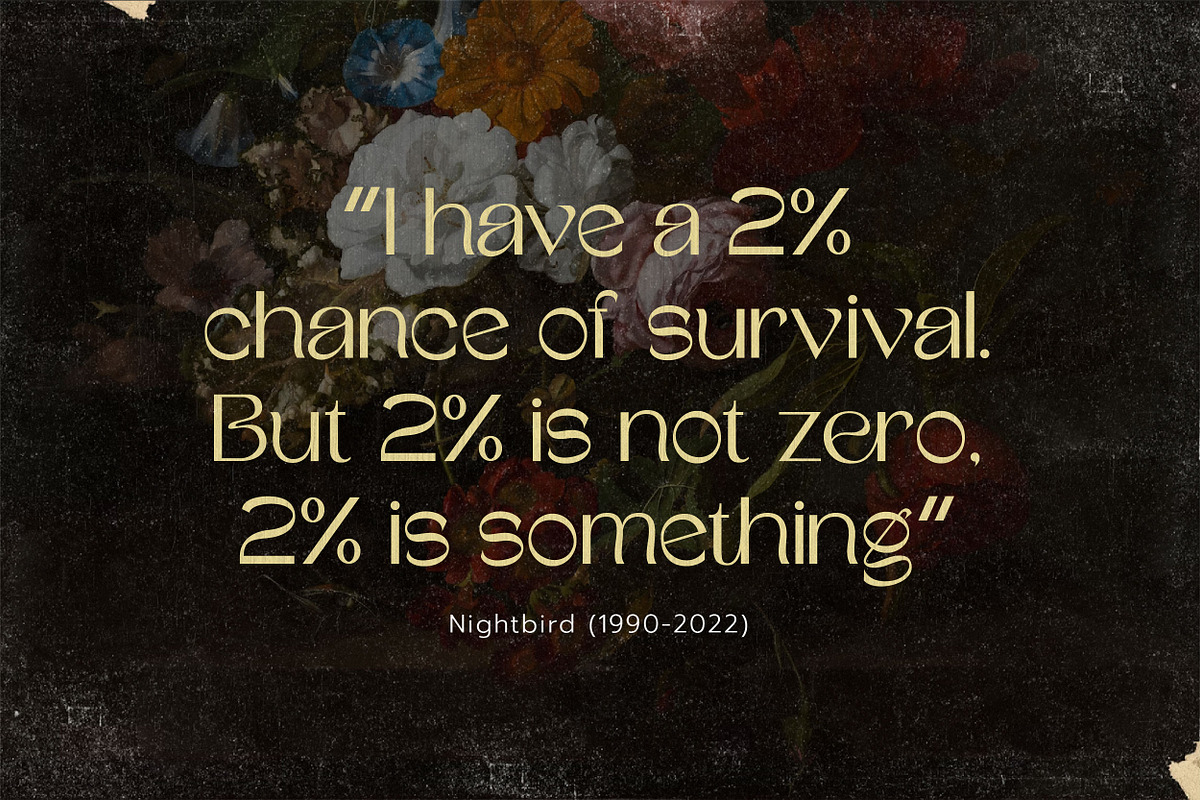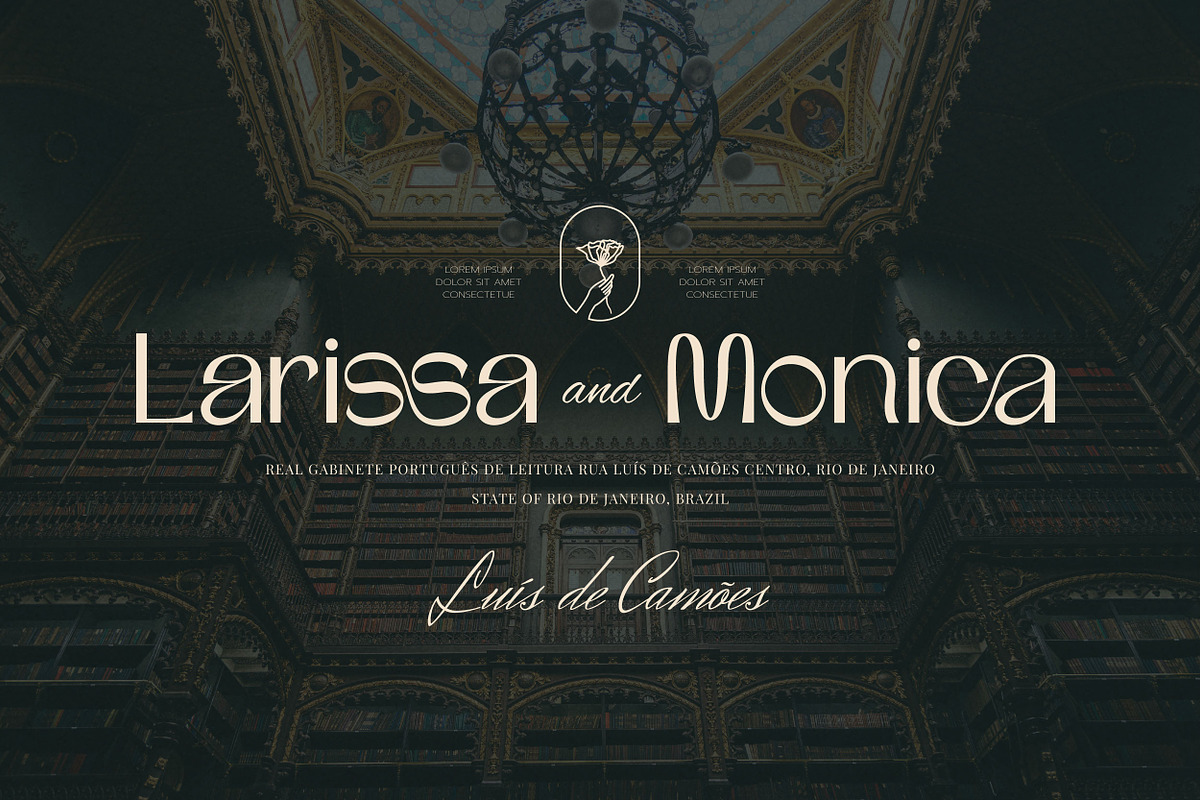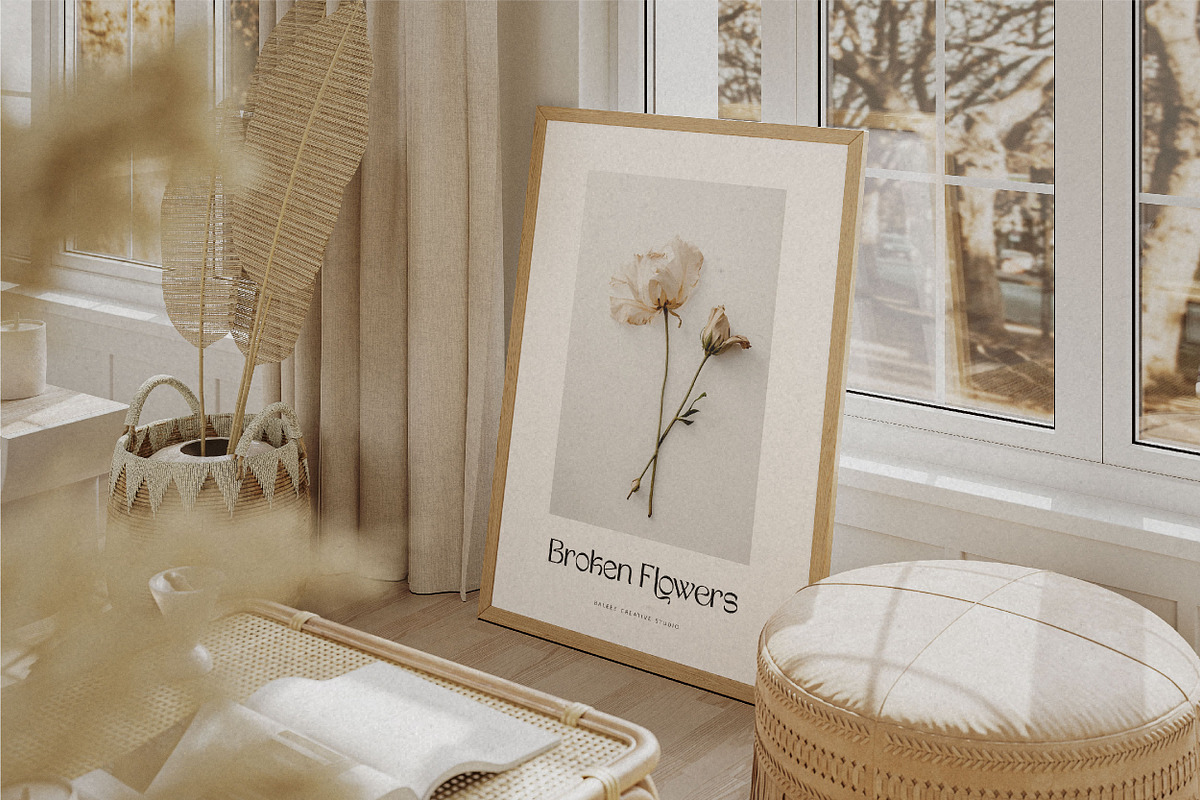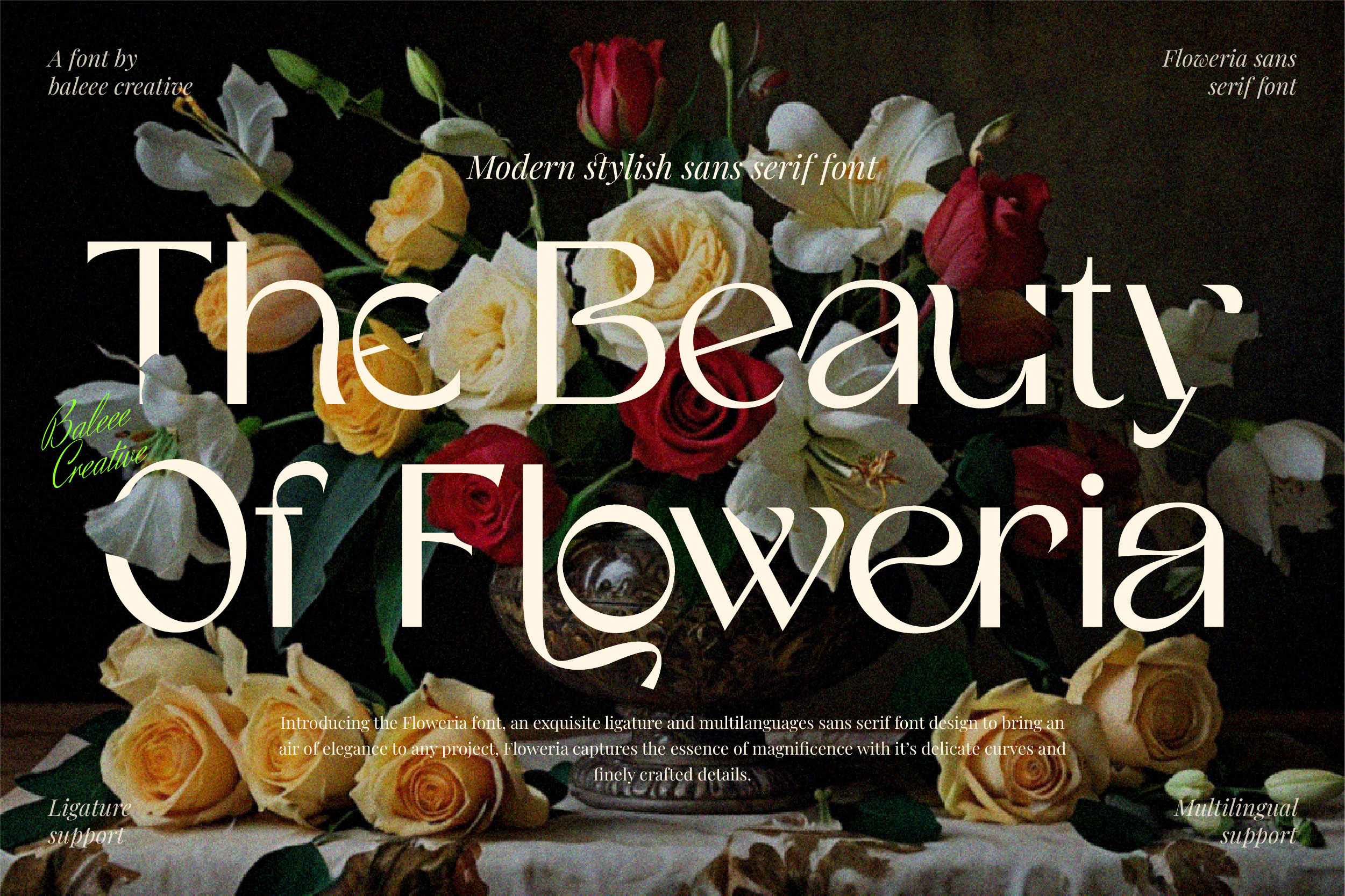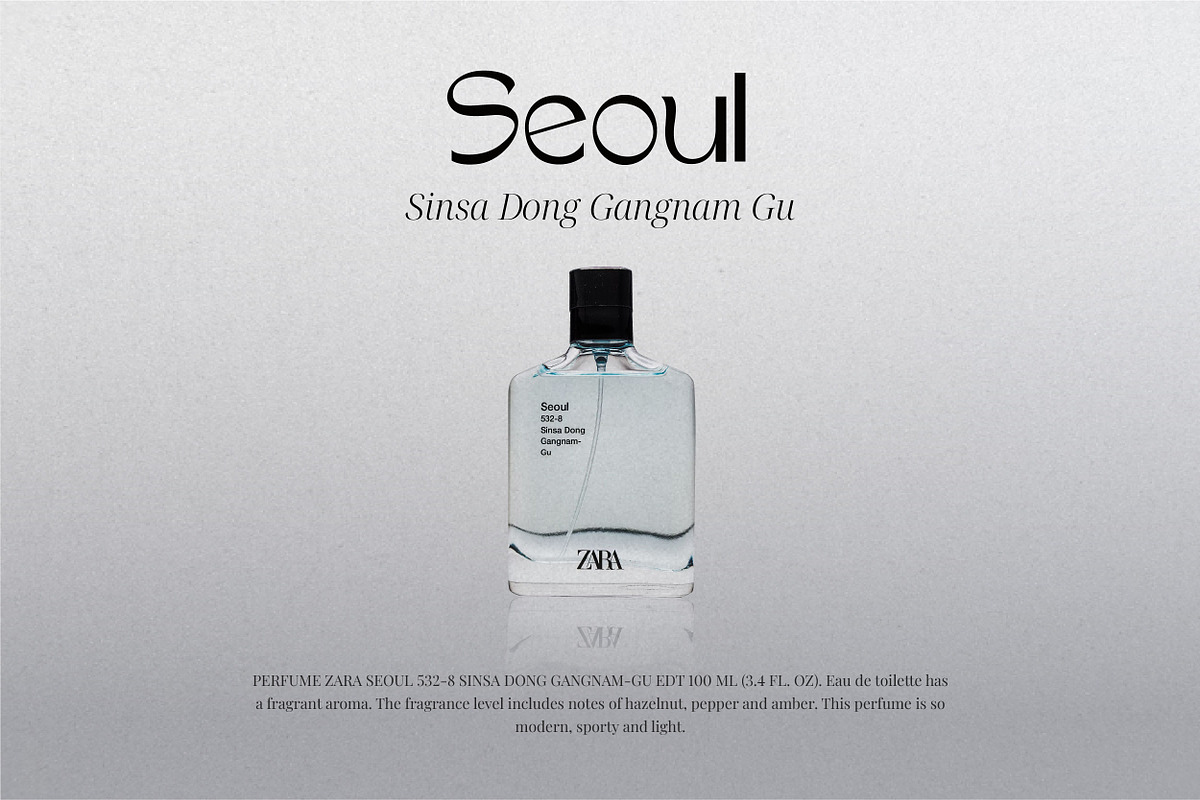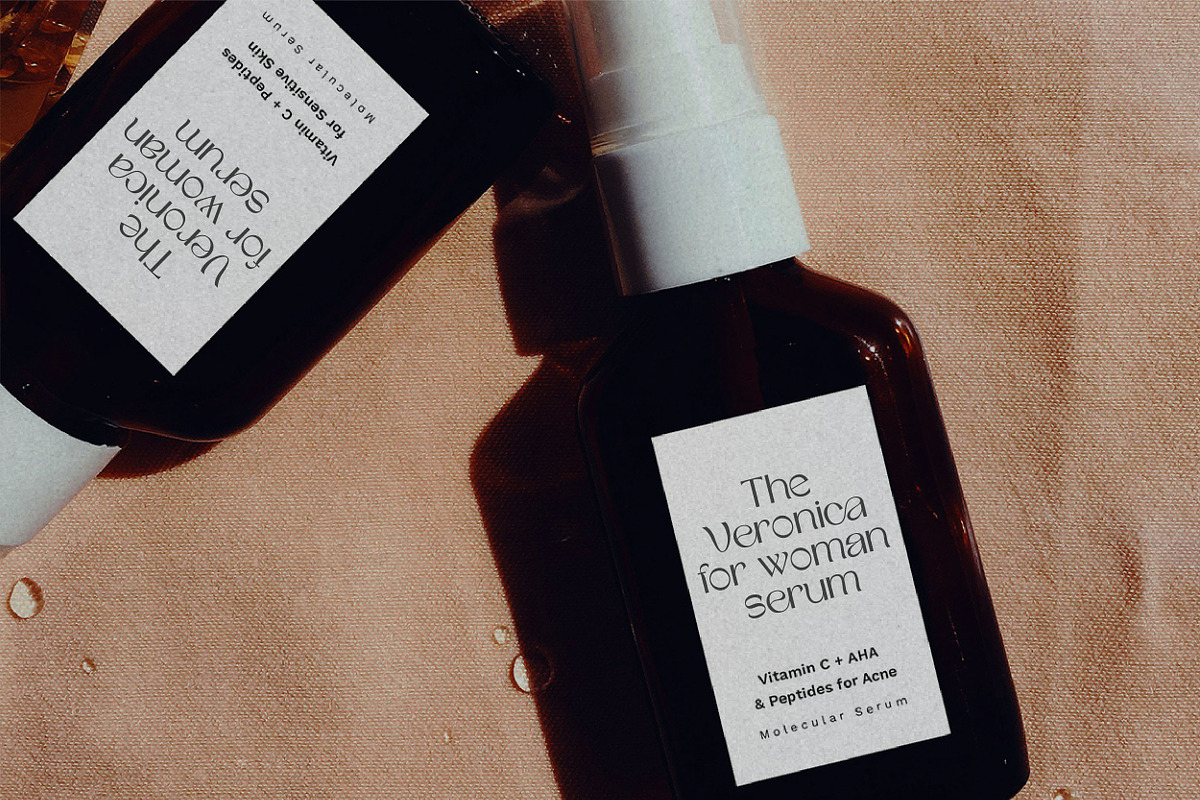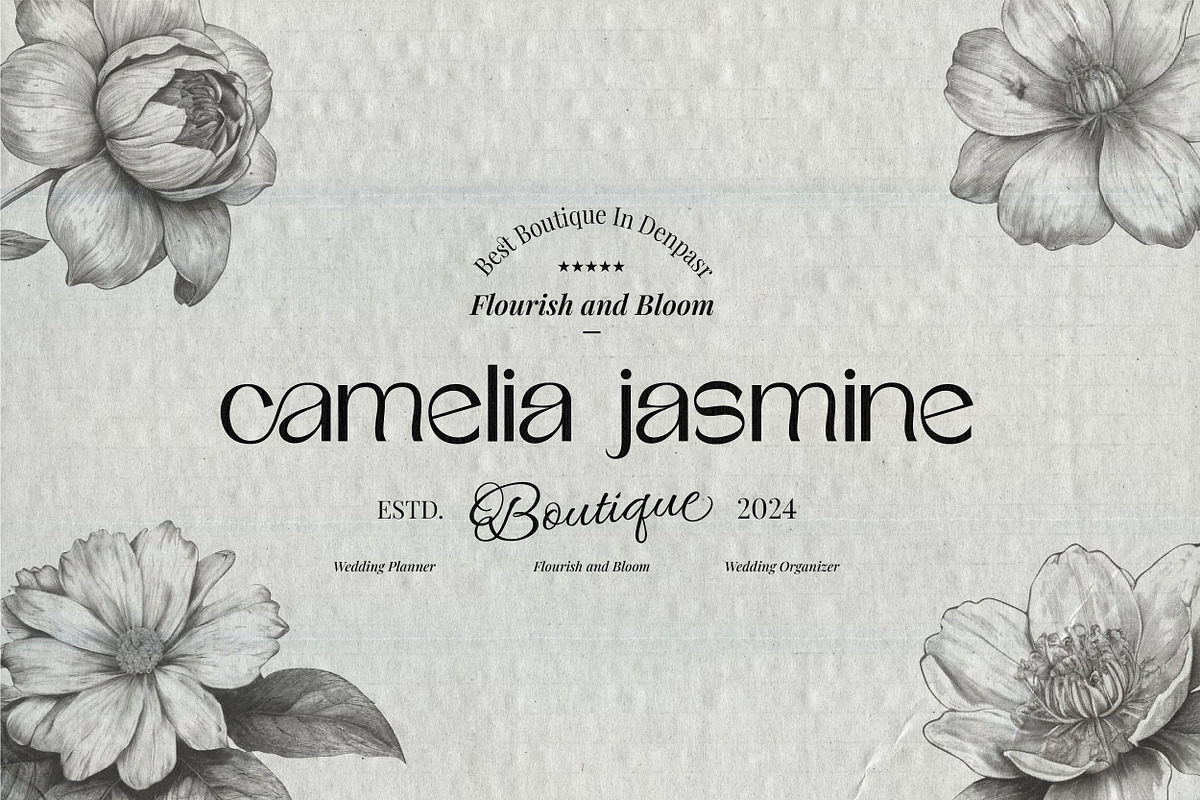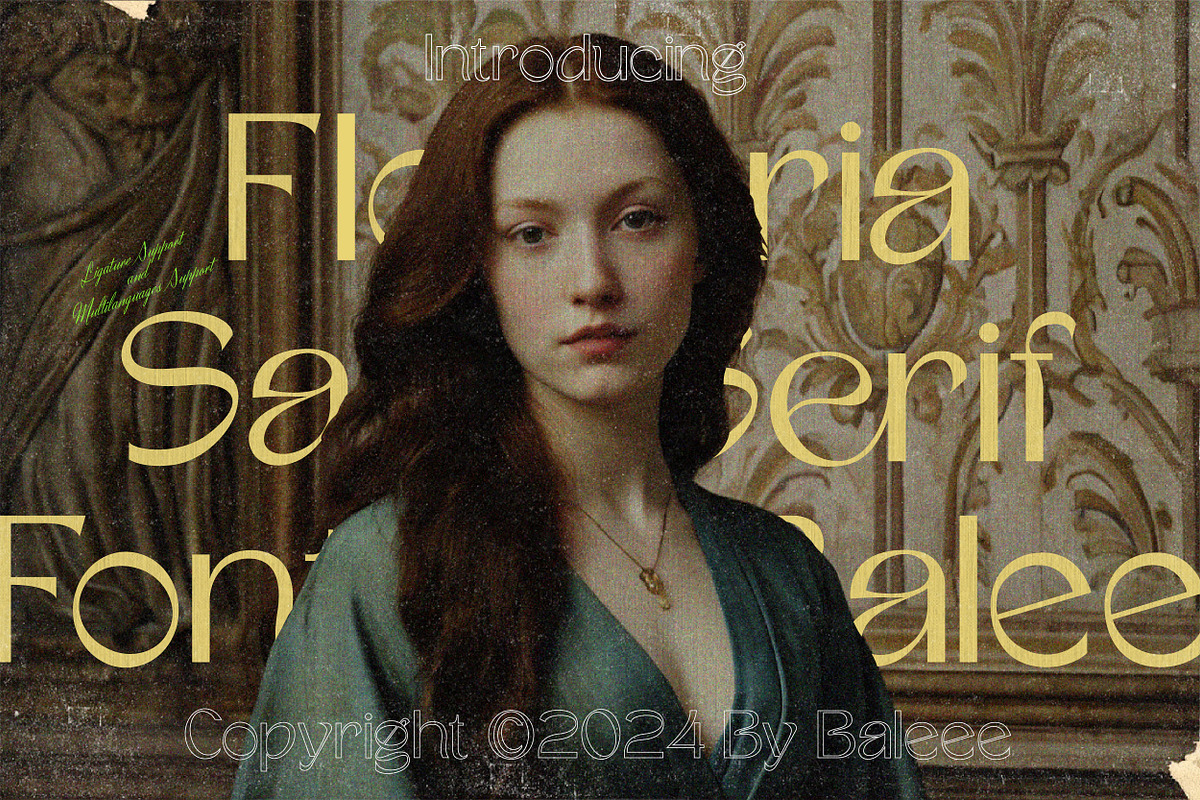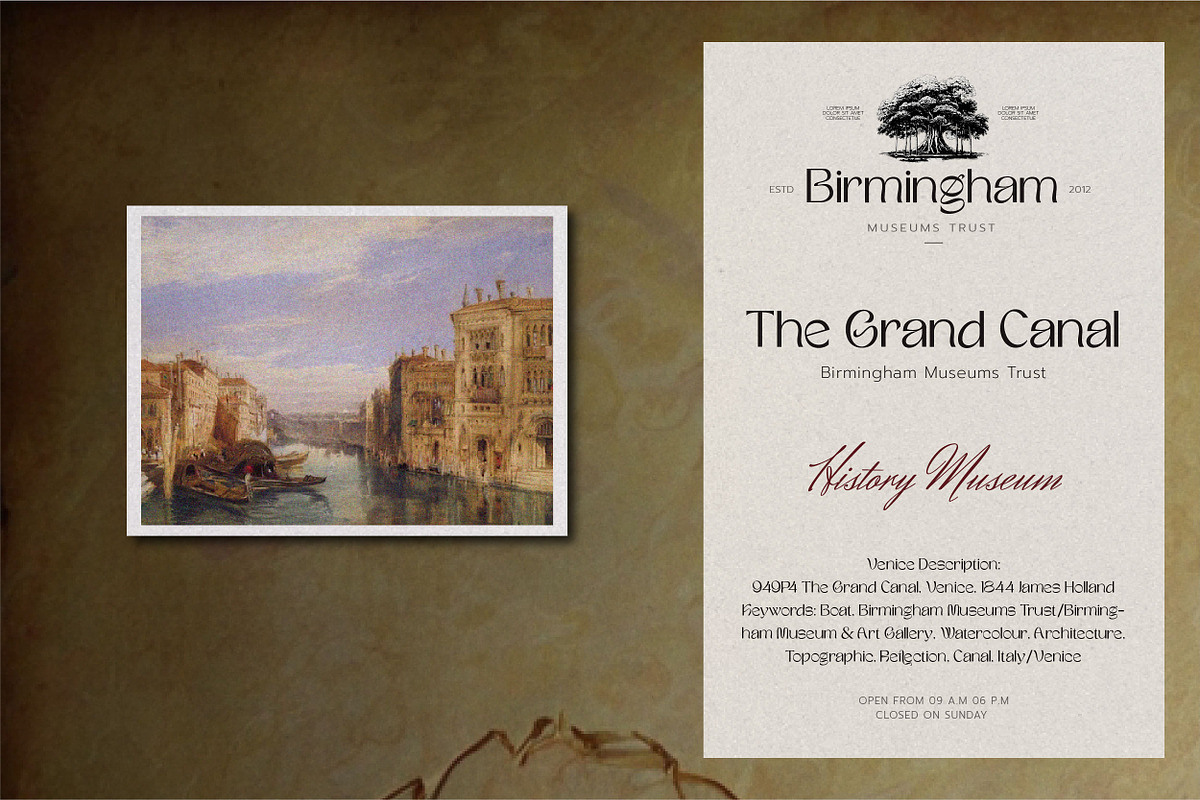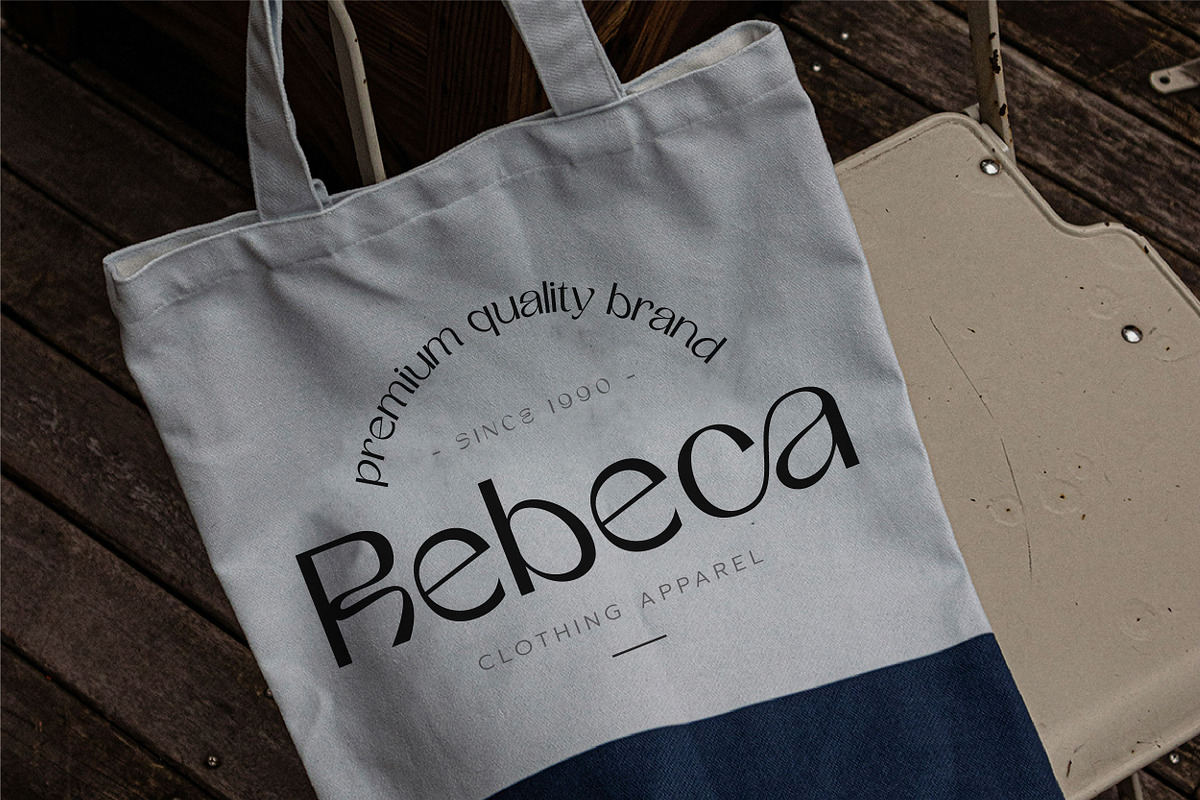
Floweria - Beauty Sans Serif Font
Introducing Floweria - The Beauty Sans Serif Font
A magnificence sans serif font with a modern feel. Equipped with multilanguages and ligatures to play around with! This font has a soft and unique look to the edges of the letters. That’s how this font was created to give it an elegant and authentic look!
The Floweria Font is perfect for: t-shirt, logos, branding, wedding invitations, digital template, business cards, greeting cards, posters, magazines, social media, planner prints and websites.
Features: Stylistic Multilanguages, ligatures, numerals, punctuation Accented characters